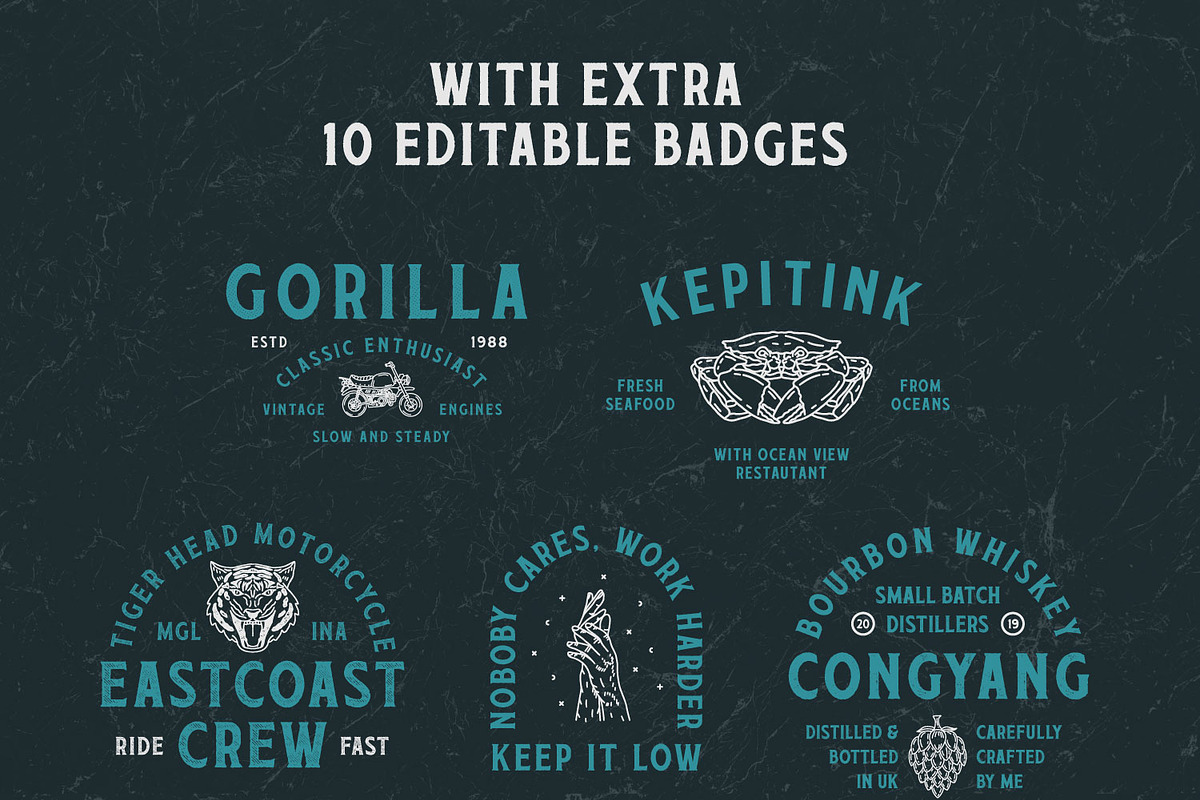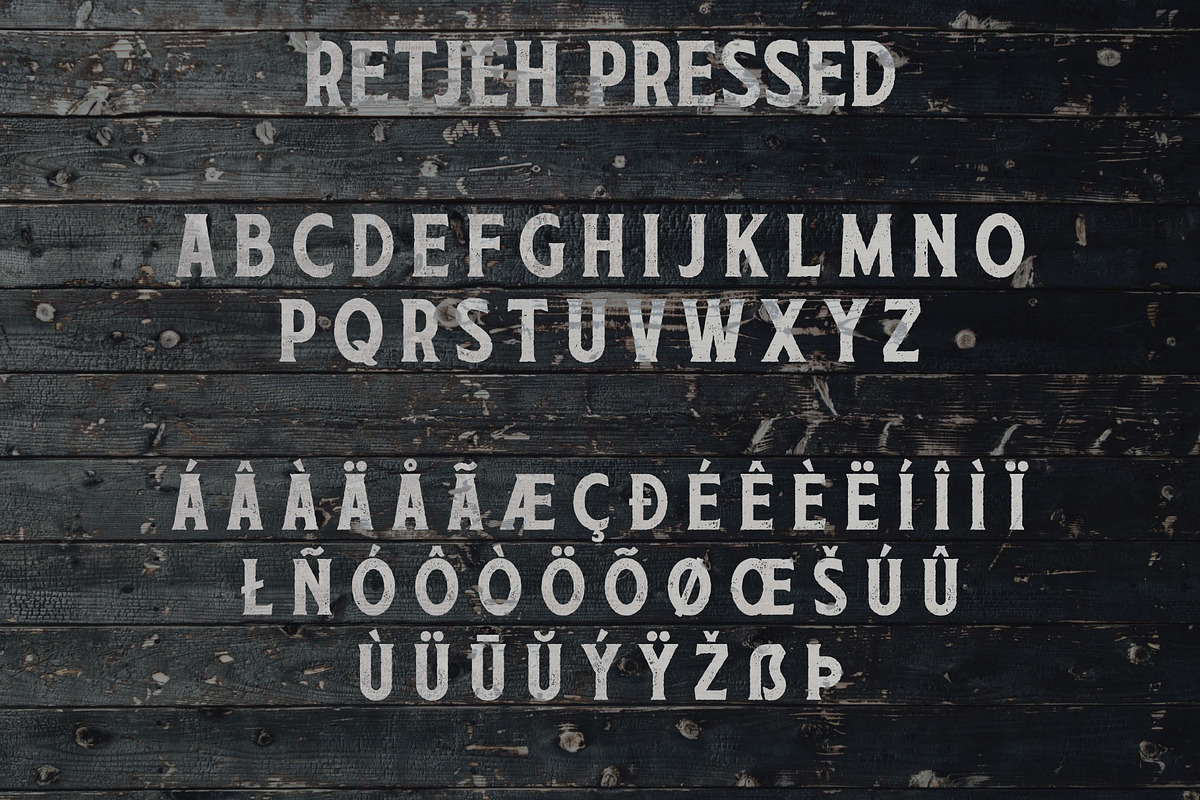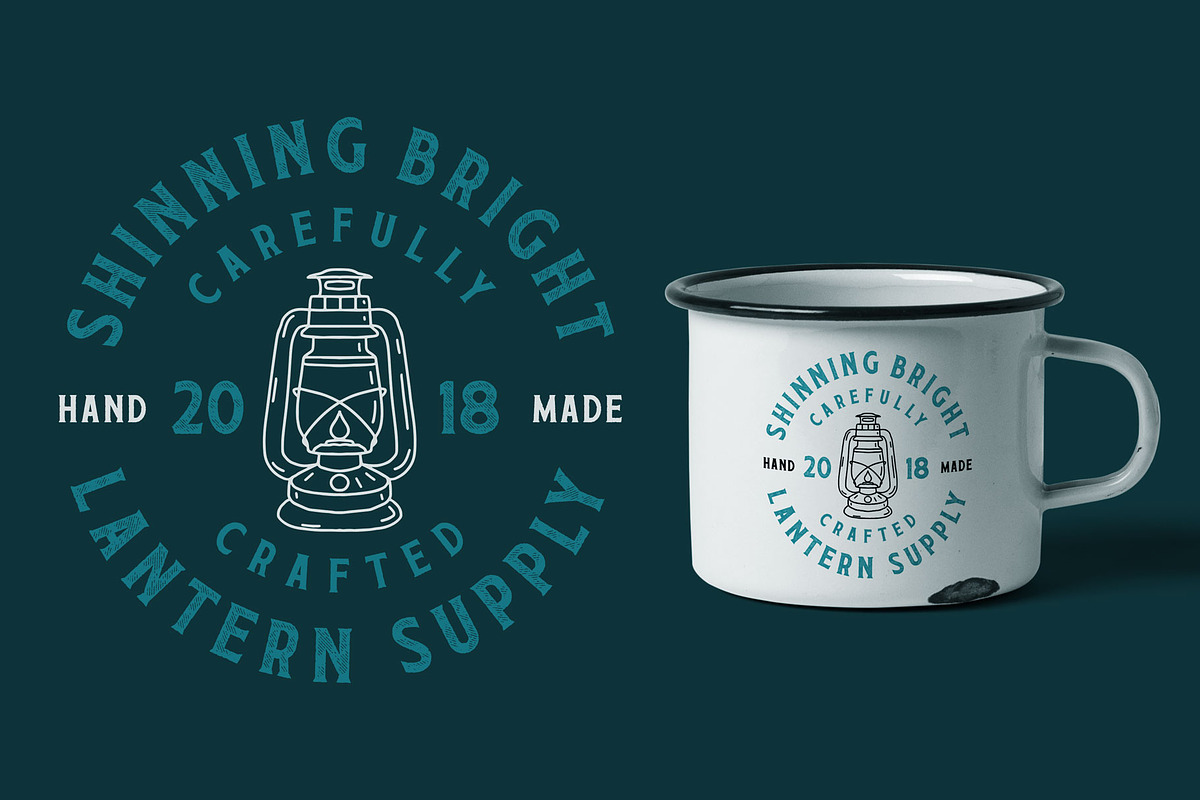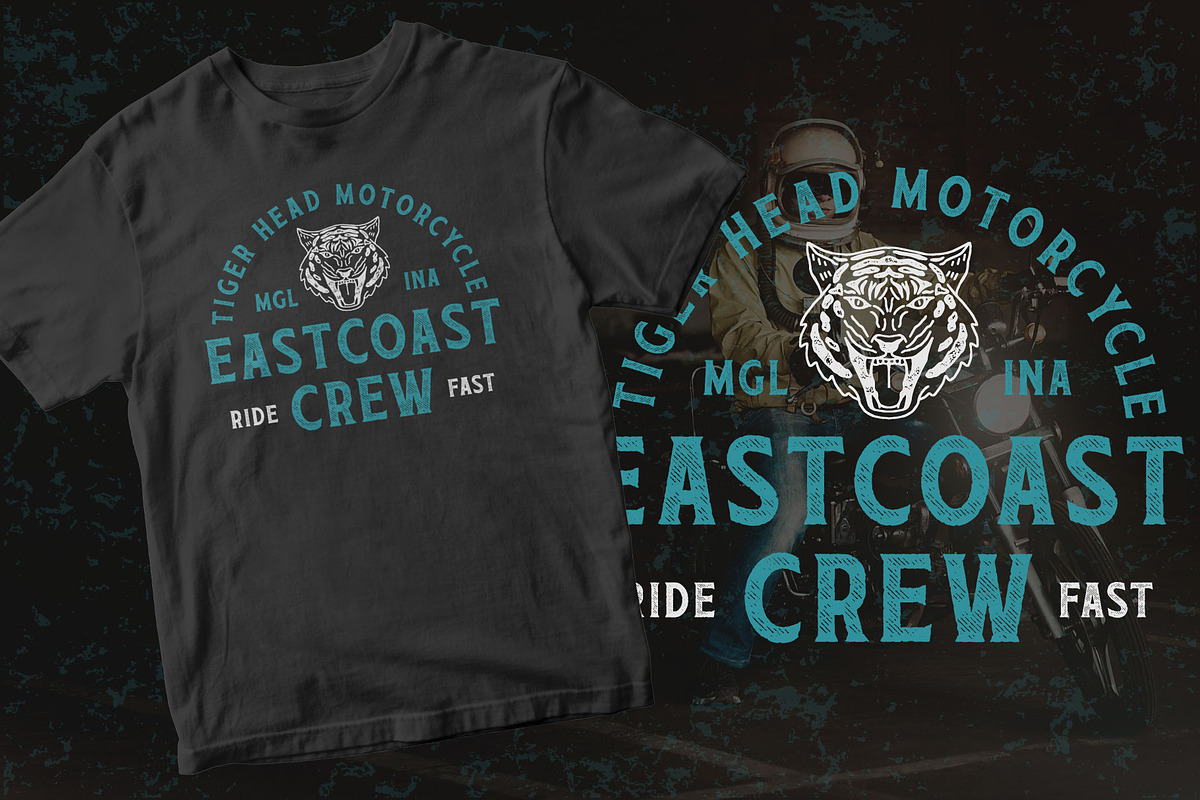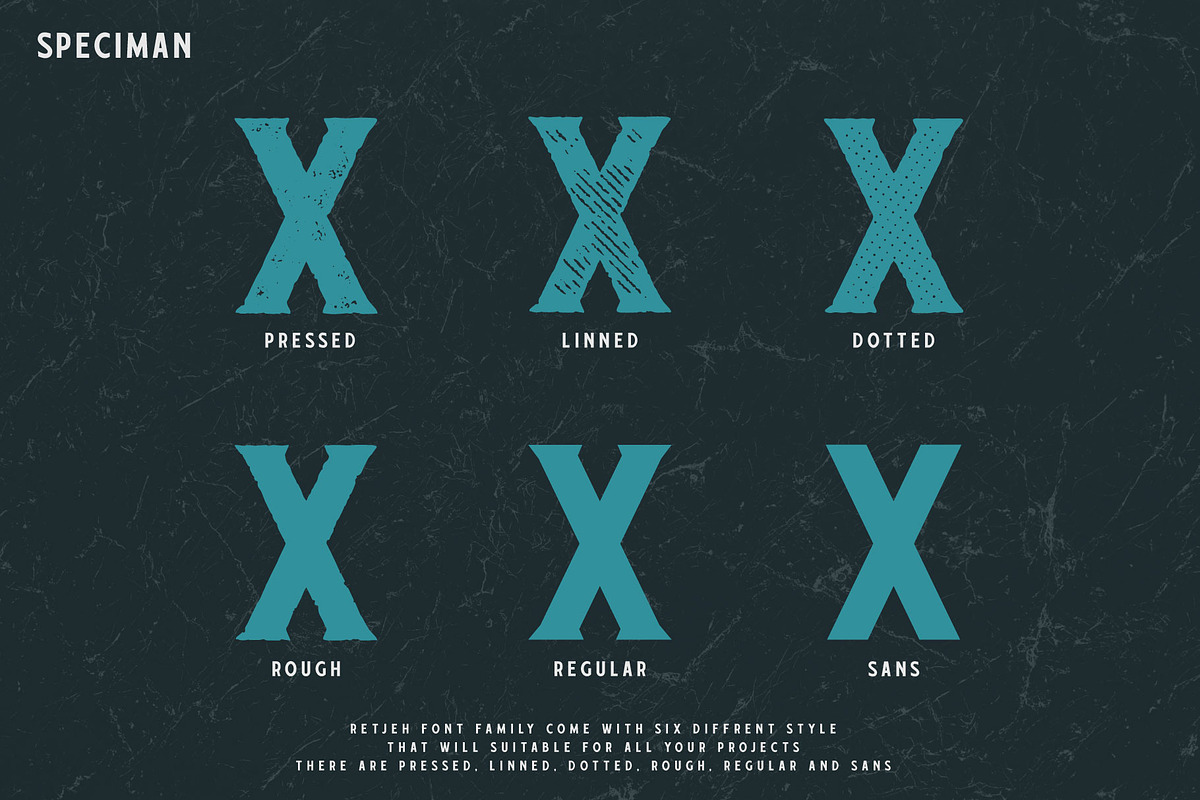
Retjeh Vintage Font Family
Retjeh is an all uppercase vintage font which is inspired by western lettering from the industrial and good old past, but it still has a strong modern appearance. It's allows versatile design options and works perfectly for headlines, logos, posters, packaging, T-shirts, postcards and much more.
Extra 10 Editable Badges
- Retjeh Regular
- Retjeh Dotted
- Retjeh Linned
- Retjeh Pressed
- Retjeh Rough
- Retjeh Sans